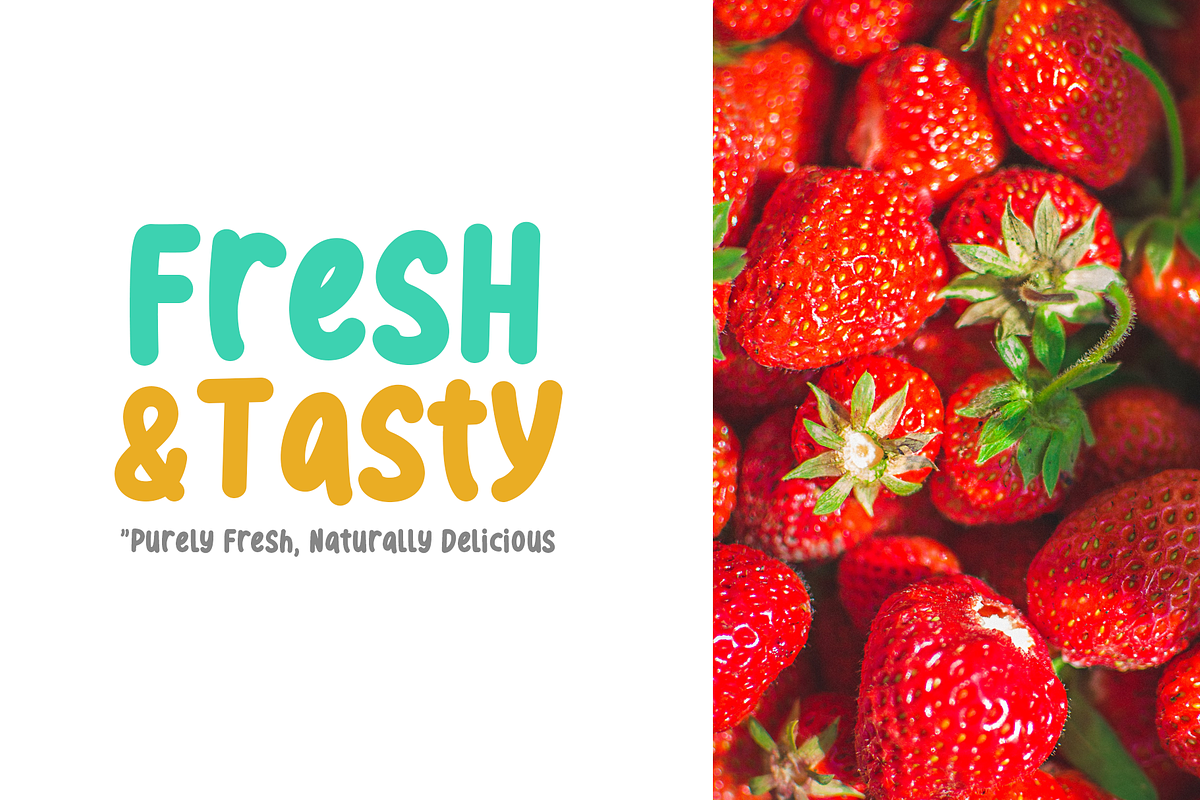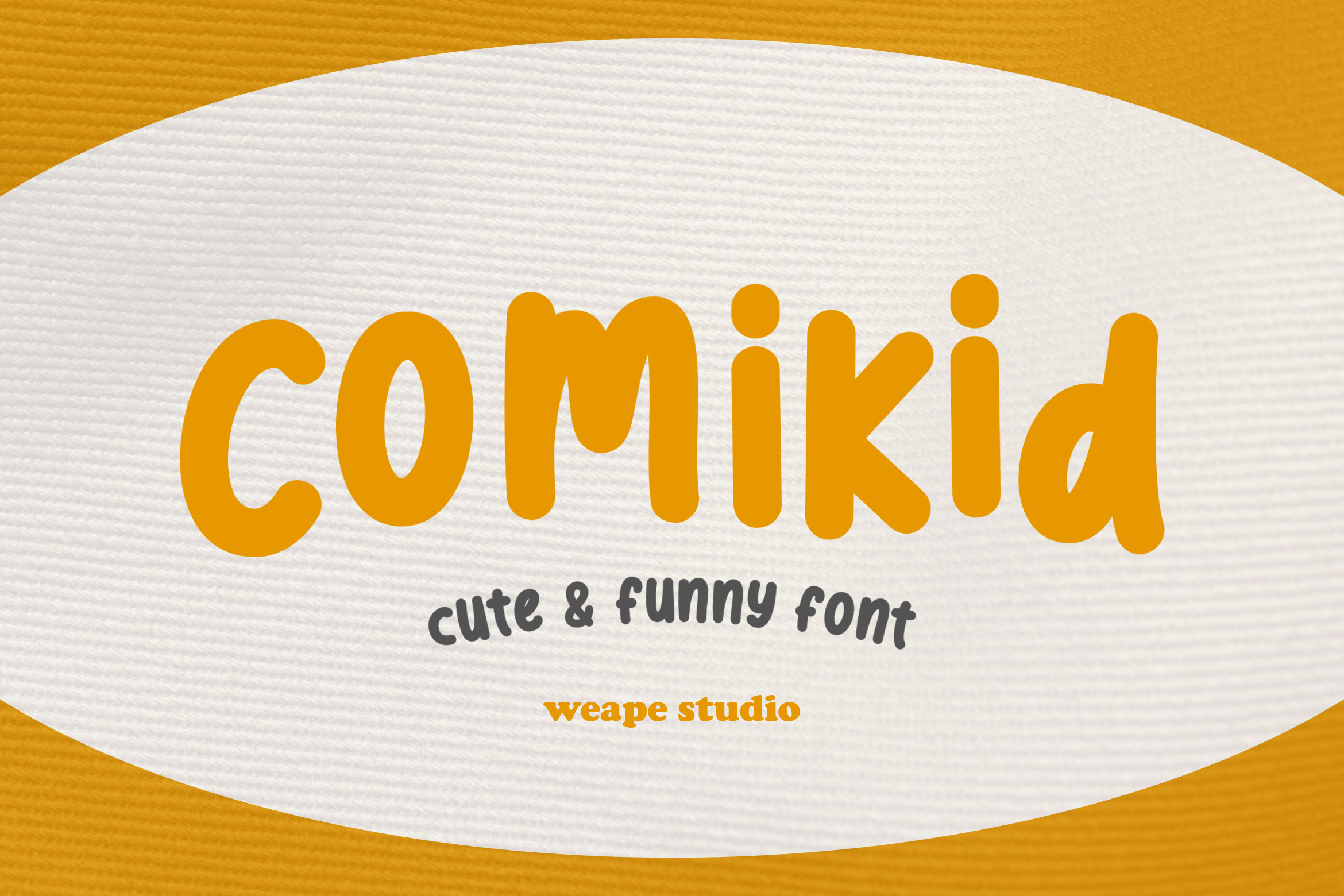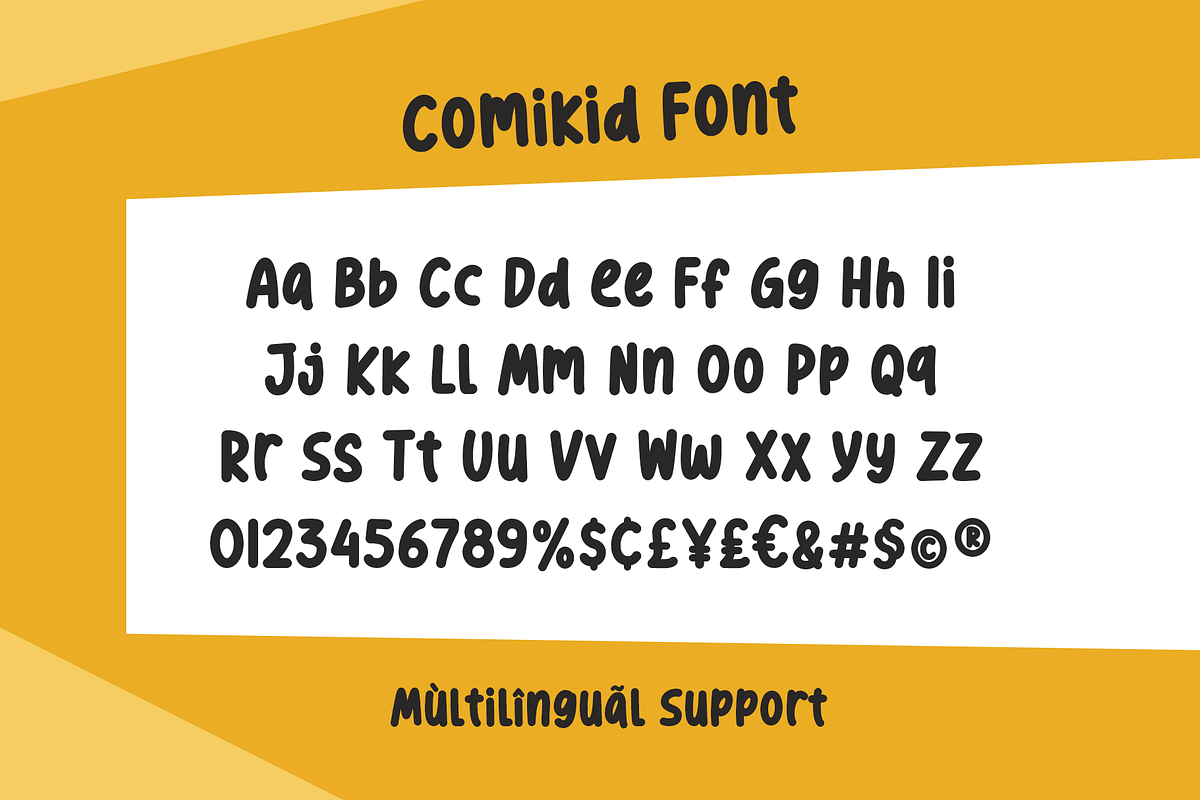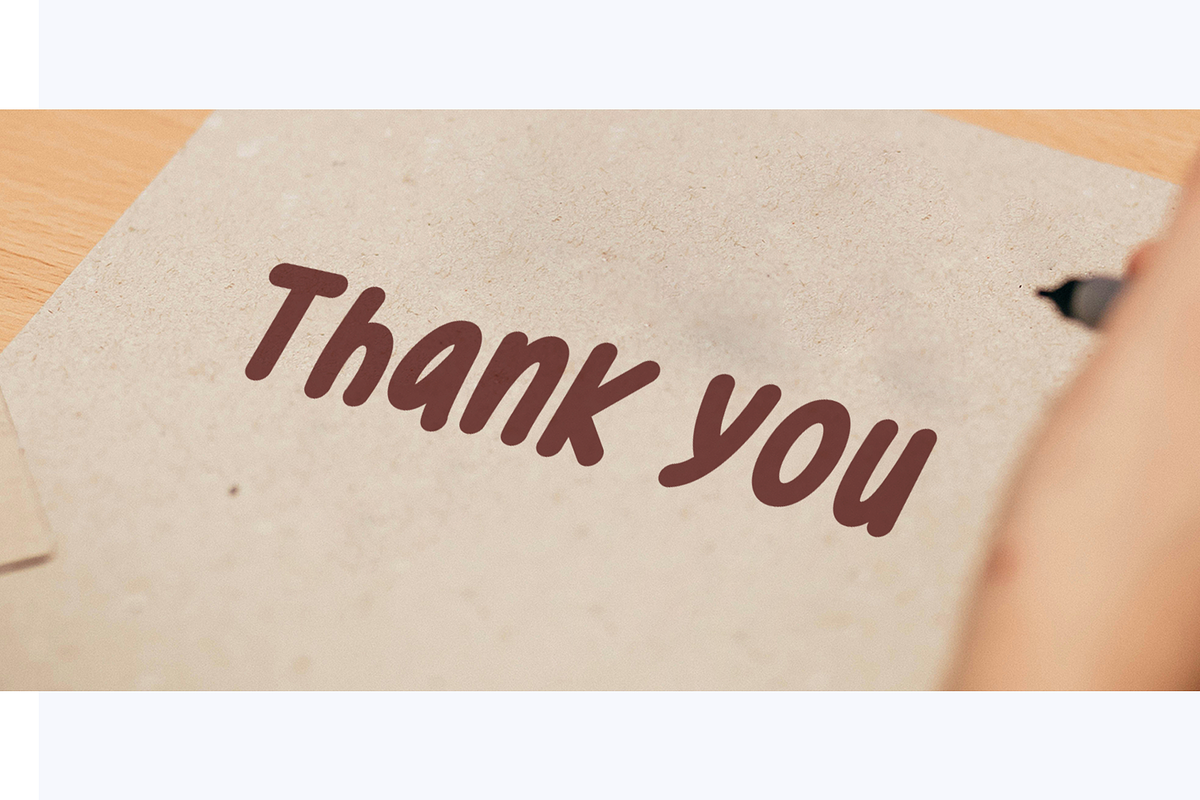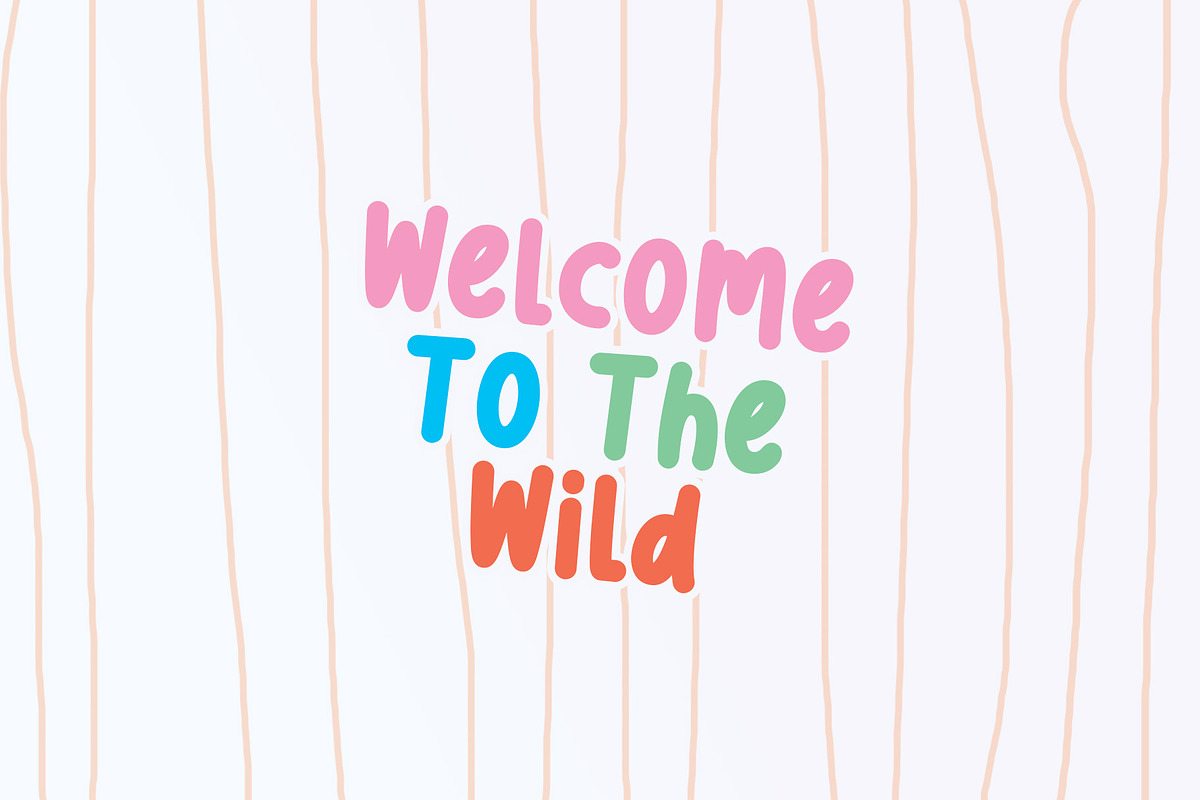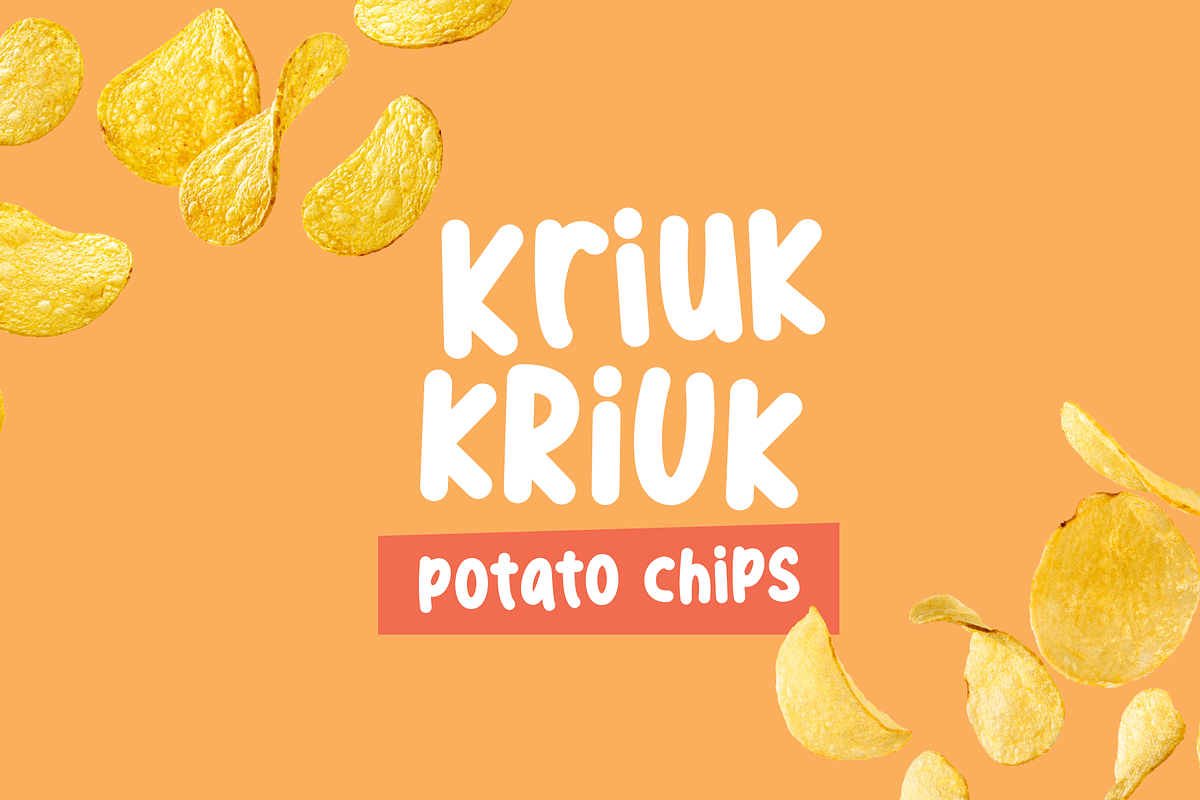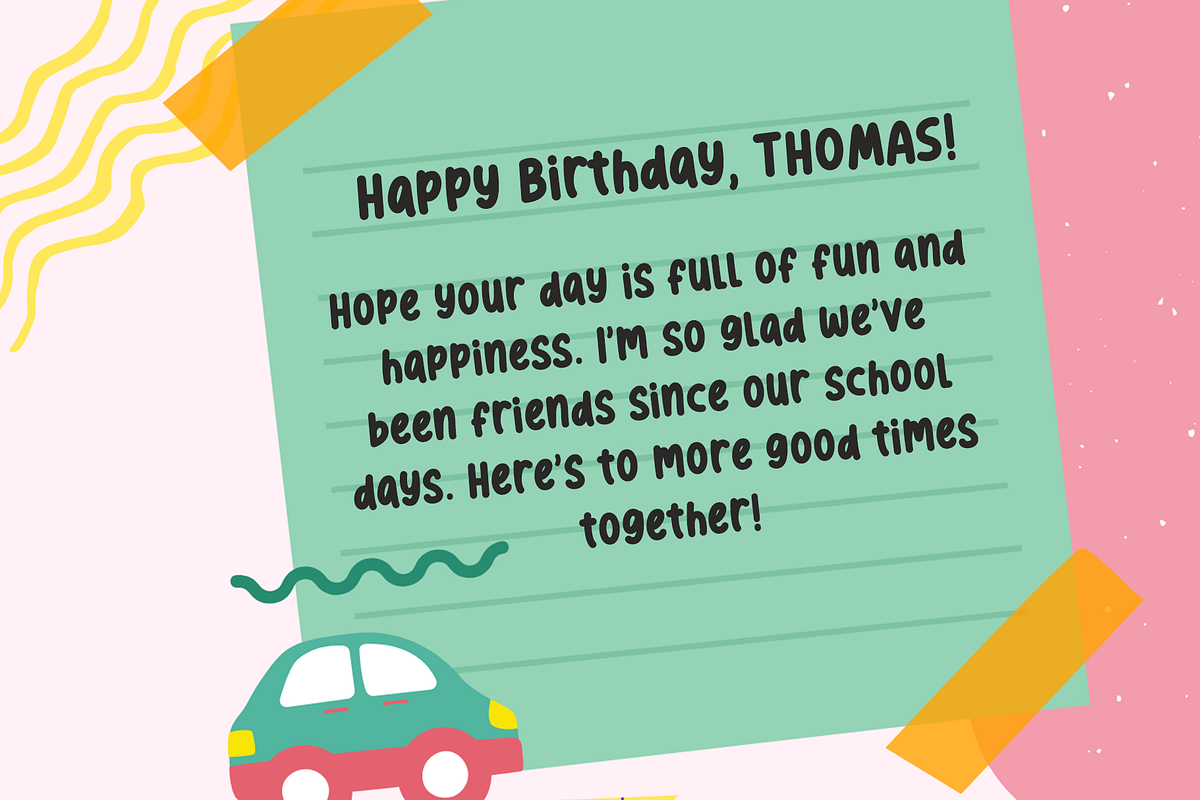
Comikid - Cute & Funny Font
Meet Comikid, the perfect font for kid-friendly designs! With its playful, childlike handwriting style, smooth curves, and monoline look, Comikid is ideal for anything related to children. Whether you’re creating educational materials, children’s books, or party invites, this font adds a fun, friendly touch to your projects. Bring a sense of fun and simplicity to your designs with Comikid!
This font comes in uppercase, lowercase, punctuations, symbols & numerals, ligatures, etc.